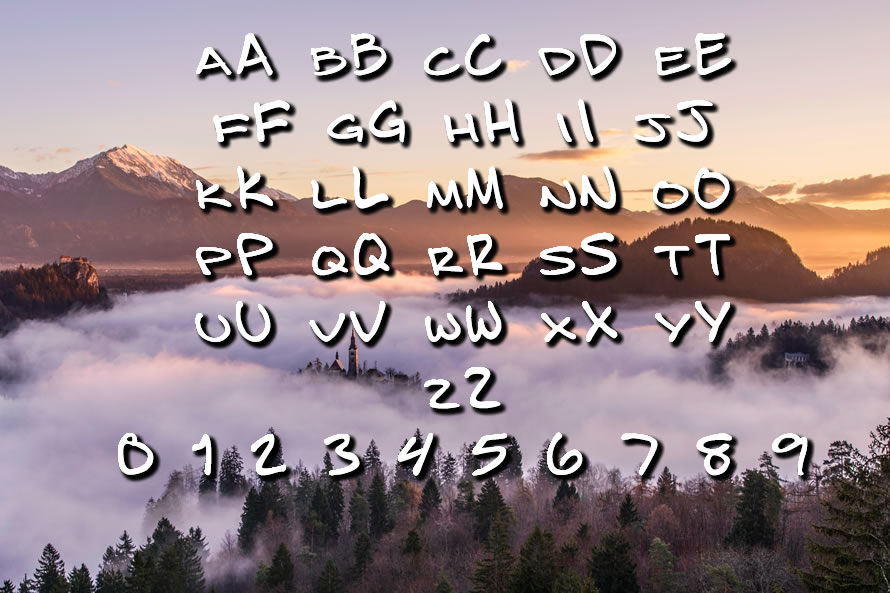
Bizzack Font
About Bizzack Font
Bizzack is the premier font of Nick Bizzack.
This handwritten font is smooth, fun, and works for many types of projects.
The letters are clear to read and are suitable for both digital and print.